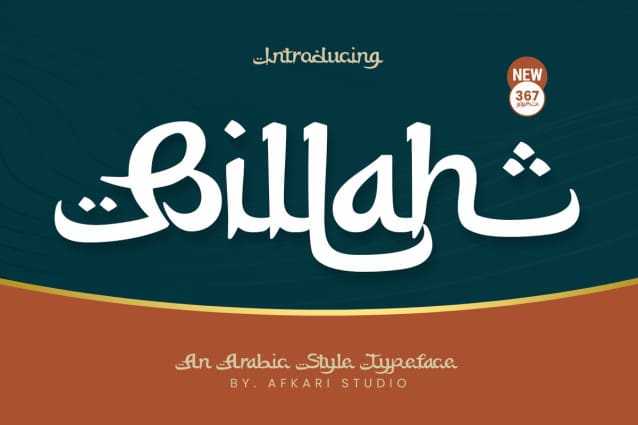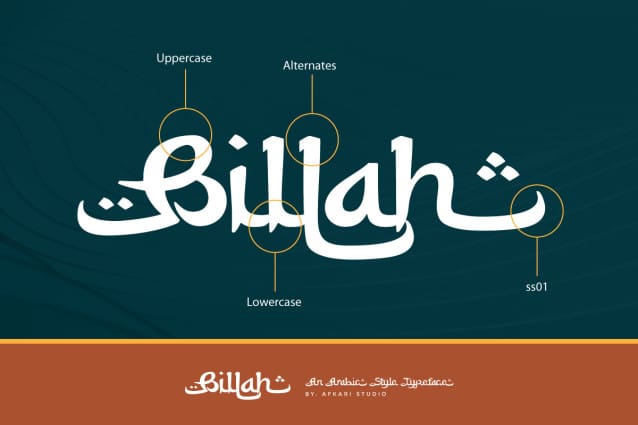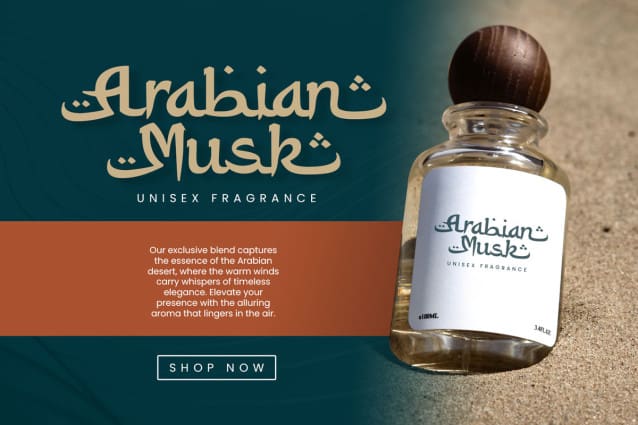
Billah Arabic Font
Billah Arabic Font, a captivating Arabic-style typeface that pays homage to the rich cultural heritage of Arabic calligraphy. Immerse your designs in the elegance of Billah, meticulously crafted to infuse every text with an authentic Arabic feel. This exquisite font is more than just a typeface; it’s a design journey that effortlessly brings the essence of Arabic style to your creative projects.
Billah is thoughtfully designed with Latin characters, ensuring international readability and allowing your message to transcend linguistic barriers. Whether you’re working on branding, product packaging, quotes, flyers, posters, logotypes, apparel, or any project that requires a touch of Arabic sophistication, Billah is the ideal choice.